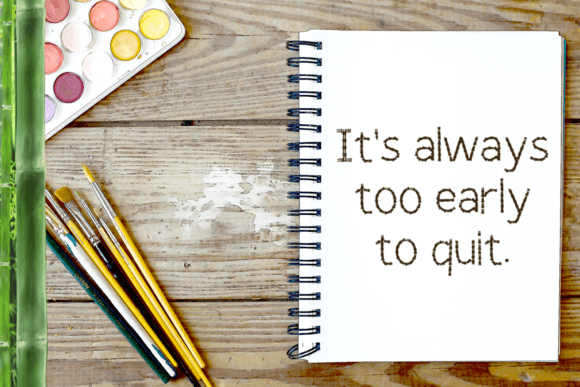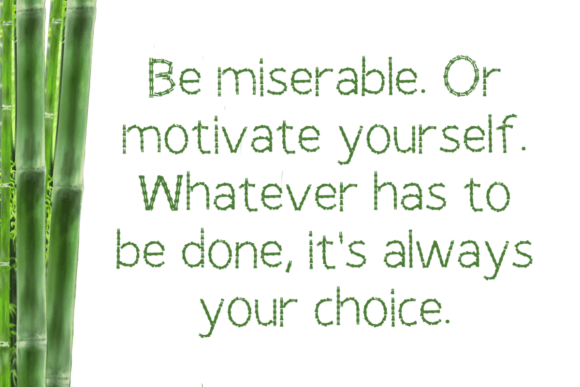
The Bamboo Ristea Font: A Fun and Quirky Display Font for Your Creative Projects
I still remember the time I was working on a project for a client who wanted a fun and playful vibe. I had spent hours browsing through font libraries, but nothing seemed quite right. That was until I stumbled upon the Bamboo Ristea font. It was love at first sight! 😍 The quirky and charming design instantly captured the essence of what my client was looking for. In this article, I’ll share my experience with the Bamboo Ristea font, its features, and how to make the most of it in your creative projects.
An Honest Review of Bamboo Ristea Font
What I Love About Bamboo Ristea Font
- ✨ Unique and quirky design that adds a touch of playfulness to any project
- ✅ Highly legible, even at smaller sizes
- 💥 Excellent for display text, headings, and titles
- 🎉 Supports multiple languages and OpenType features
While the Bamboo Ristea font is amazing, there are a few things to keep in mind:
- 🤔 May not be suitable for body text or long paragraphs due to its display font nature
- ⚠️ Some characters may not be suitable for use in formal or professional contexts
The Story Behind Bamboo Ristea Font
The Bamboo Ristea font was designed with the intention of creating a fun and quirky display font that would add a touch of playfulness to any project. The designer aimed to create a font that was both unique and legible, making it perfect for creative projects that require a bit of personality.
Q: What is the Bamboo Ristea font best used for?
A: The Bamboo Ristea font is best used for display text, headings, and titles. It’s perfect for projects that require a fun and playful vibe, such as invitations, posters, and social media graphics.
Q: Is the Bamboo Ristea font suitable for body text?
A: While the Bamboo Ristea font is highly legible, it’s not recommended for body text or long paragraphs. Its display font nature makes it better suited for shorter texts and titles.
Q: Is the Bamboo Ristea font available in multiple languages?
A: Yes, the Bamboo Ristea font supports multiple languages and OpenType features, making it a versatile font for a wide range of projects.